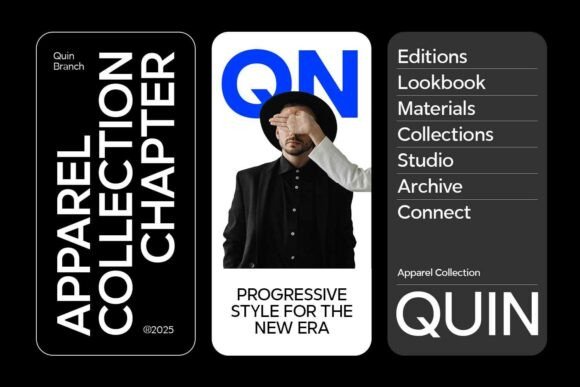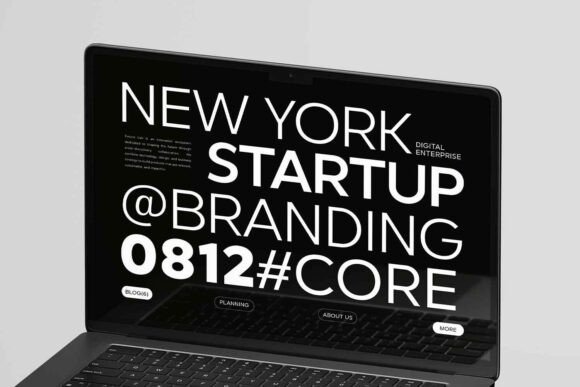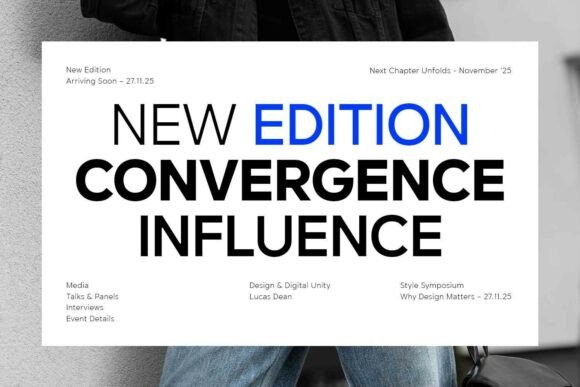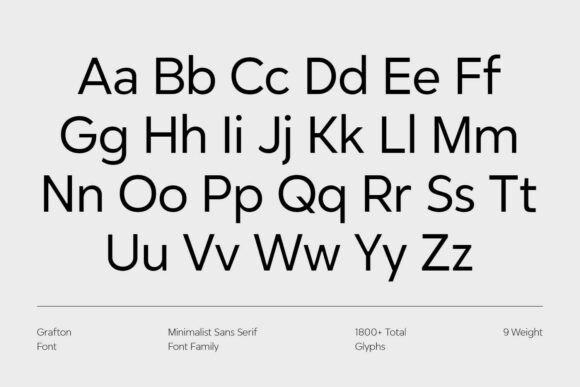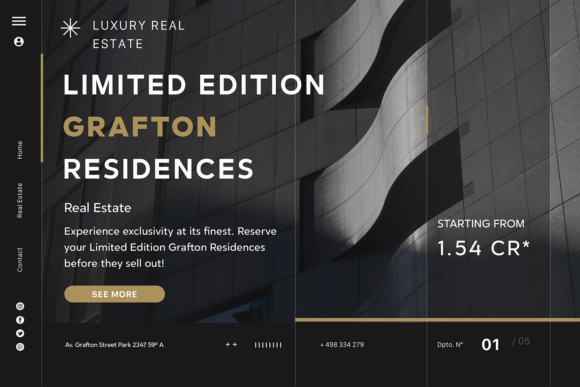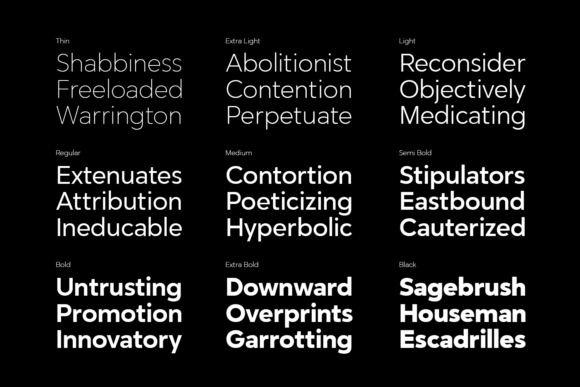
The Designer’s Dream Font: Grafton
I’ll never forget the time I was working on a branding project for a trendy new coffee shop. My client was specific about wanting a modern, clean look that would appeal to the young and hip. As I scrolled through font after font, nothing seemed quite right. That was until I stumbled upon Grafton – a geometric font family that embodied precision and balance. It was love at first sight! 💕
A Closer Look at Grafton
Grafton – Geometric Font Family is designed with a modern geometric foundation, bringing a sense of order and clarity to every composition. Its meticulously structured letterforms ensure a refined and professional appearance across all applications. With nine distinct weights ranging from Thin to Extra Black, Grafton provides exceptional versatility for both subtle and bold expressions.
What I Love About Grafton
- ✨ Exceptional versatility: With nine weights, Grafton can be used for a wide range of design projects, from subtle and elegant to bold and attention-grabbing.
- ✅ Consistent geometry: Each weight maintains a consistent geometric structure, allowing for seamless visual hierarchy and adaptability across print and digital media.
- 💯 Enhanced legibility: The geometric architecture of Grafton enhances legibility while preserving visual impact, making it suitable for complex layouts or smaller text sizes.
- 🎨 Refined and professional appearance: Grafton’s structured design makes it a reliable choice for branding, editorial layouts, and interface typography.
While Grafton is an amazing font, there are a few things to keep in mind: 🤔
- ⚠️ Limited expressiveness: As a geometric font, Grafton may not be the best choice for projects that require a lot of personality or flair.
- ⚠️ Not ideal for body text: While Grafton is legible, it’s not designed for long-form reading. Consider using a serif font for body text.
Grafton’s design is inspired by the works of renowned typographers like Jan Tschichold and Hermann Zapf, who pioneered the development of modern geometric typography. The font’s creator aimed to craft a font that would bring a sense of order and clarity to modern design, while maintaining a refined and professional appearance.
| Font Name | Grafton Font |
| Author | Umitype |
| What is Grafton’s primary use case? | Grafton is ideal for branding, editorial layouts, and interface typography, where a clean and professional appearance is essential. |
| Is Grafton suitable for body text? | While Grafton is legible, it’s not designed for long-form reading. Consider using a serif font for body text. |
| Can I use Grafton for digital interfaces? | Absolutely! Grafton’s geometric architecture and clean design make it perfect for digital interfaces, including websites, apps, and more. |
| Does Grafton support OpenType features? | Yes, Grafton supports OpenType features, including stylistic alternates, ligatures, and more. |